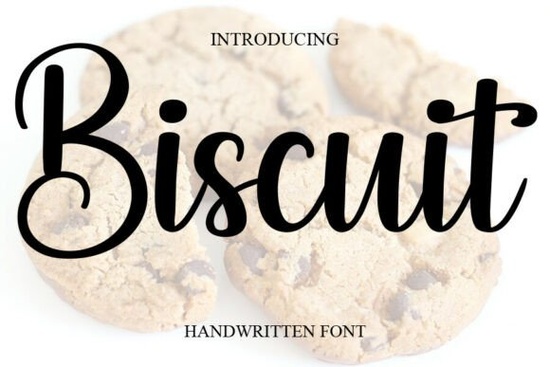
If you're looking for a friendly, handwritten font that feels both elegant and approachable like something you’d write with a fine-tip pen on creamy stationery you’ll love Biscuit Font. It’s a sweet, cursive script with gentle curves and soft contrast between thick and thin strokes. Not too formal, not too playful it lands right in the middle, making it unusually versatile for real-world design work.
When does Biscuit Font work best?
Because it’s warm and legible at medium sizes, Biscuit shines in contexts where personality matters but readability can’t be sacrificed. Think wedding invitations where guests need to spot their names quickly or greeting cards that should feel personal, not printed. Small businesses use it for boutique packaging labels, café chalkboard menus, or Instagram story text overlays that match a relaxed, artisanal vibe. Print-on-demand sellers find it especially useful for mugs, tote bags, and wall art where “handmade” energy translates well visually.
It’s also a smart pick for fashion lookbooks or seasonal promotions where tone is key: imagine “Spring Edit” in Biscuit beside a soft linen dress photo, or “Hand-Poured Soy Candle” on a minimalist product tag. Unlike some ultra-thin or tightly spaced scripts, Biscuit keeps breathing room between letters, so it scales down nicely for social bios or app icons without turning into a blur.
How does it compare to other popular script fonts?
Every script has its own rhythm and knowing which one fits your project saves time and avoids awkward revisions. For example, if you’re designing baseball-themed merch or vintage sports apparel, Baseball Classic Font gives that bold, retro scoreboard energy. But Biscuit wouldn’t compete there it’s quieter, more intimate.
For travel-focused branding say, honeymoon stationery or destination wedding suites Honeymoon Handwriting Font leans into looser, more spontaneous letterforms. Biscuit, by contrast, feels intentionally composed: still human, but with a little more polish. If you’re working on Barbie-inspired graphics or pastel-heavy kids’ products, Barbie Font adds whimsy and bounce. Biscuit stays grounded, with just enough charm to feel special without shouting.
Need something tender and family-oriented? Hello Honey Font brings warmth with rounded edges and generous spacing great for baby announcements or nursery prints. Daddy Font goes bolder and more confident, ideal for dad-themed gifts or casual apparel. Biscuit sits comfortably between them: affectionate but not saccharine, relaxed but not sloppy.
Where can you see Biscuit Font in action?
Many Creative Fabrica users pair it with simple sans-serif companions (like Montserrat or Poppins) for balanced layouts Biscuit for headlines or quotes, the sans-serif for body text. Others layer it over watercolor textures or subtle grain overlays to enhance that handmade feel. One craft seller told us they used Biscuit for “Handmade with Love” on gift tags, then switched to a clean geometric font for the recipient’s name underneath keeping hierarchy clear while adding visual interest.
If you want to explore similar styles before committing, you can preview Biscuit Font alongside others directly on Creative Fabrica. You’ll notice how its x-height and spacing differ from tighter scripts like Hello Honey Font or Daddy Font, helping you choose based on actual layout needs not just first impressions.
- ✅ You need a friendly, cursive script not overly decorative or hard to read
- ✅ Your project includes weddings, greeting cards, fashion branding, or small-batch merchandise
- ✅ You’re okay with a single-weight, no-fuss font no stylistic alternates or swashes to manage
If those match up, Biscuit Font is likely a solid, low-friction choice for your next project.